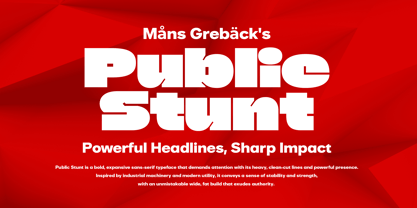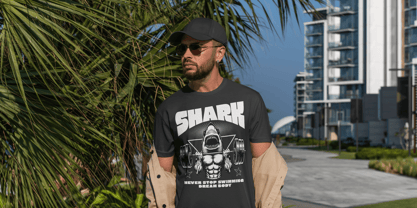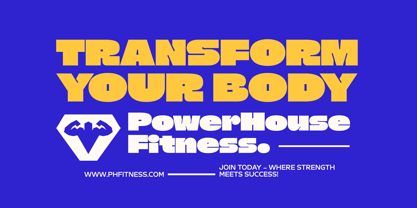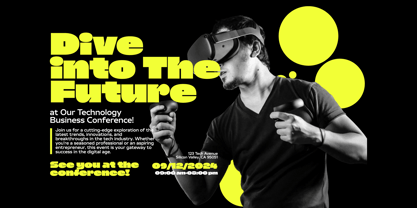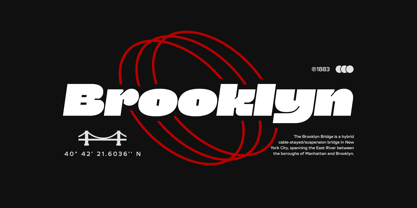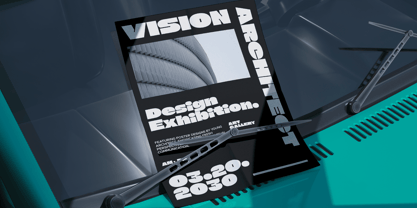
Public Stunt
by Mans Greback
The Public Stunt Font Family was designed by Måns Grebäck and published by Mans Greback. Public Stunt contains 2 styles and family package options. More about this family
Public Stunt is a bold, expansive sans-serif typeface that demands attention with its heavy, clean-cut lines and powerful presence. Inspired by industrial machinery and modern utility, it conveys a sense of stability and strength, with an unmistakable wide, fat build that exudes authority. Each character is meticulously crafted to offer clear readability, making it ideal for bold headlines and statements that require a robust visual impact.
This font’s oversized, uniform structure and clean design give it a contemporary, almost mechanical feel, evoking the efficiency and precision of industrial tools and equipment. Perfect for settings where clarity and strength must be front and center, Public Stunt feels right at home in contexts that call for boldness and authority.
The font is built with advanced OpenType functionality and guaranteed top-notch quality, containing stylistic and contextual alternates, ligatures, and more automatic and manual features; all to give you full control and customizability.
It has extensive lingual support, covering all Latin-based languages, from Northern Europe to Southern Africa, from America to Southeast Asia. It contains all characters and symbols you'll ever need, including all punctuation and numbers.
Designed by Mans Greback, Public Stunt combines strength and clarity in every letter, standing out as a compelling choice for impactful design.